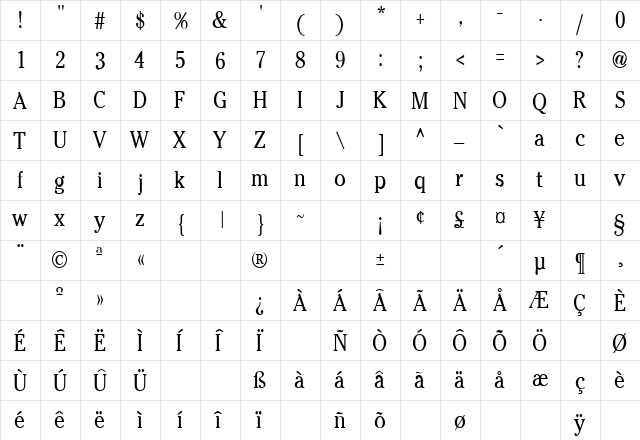
Nobody's Fault 7 Regular
Nobody's Fault 7 is a composed and adaptable typeface that performs quietly and consistently across a wide range of design contexts.